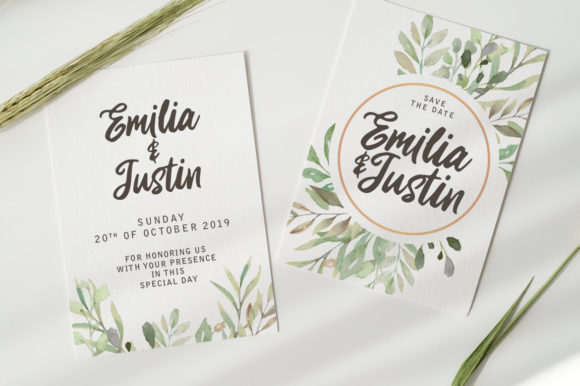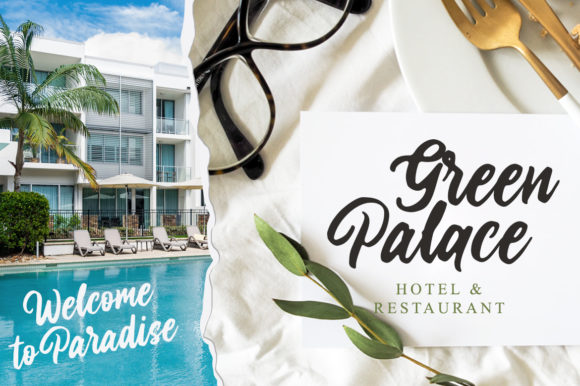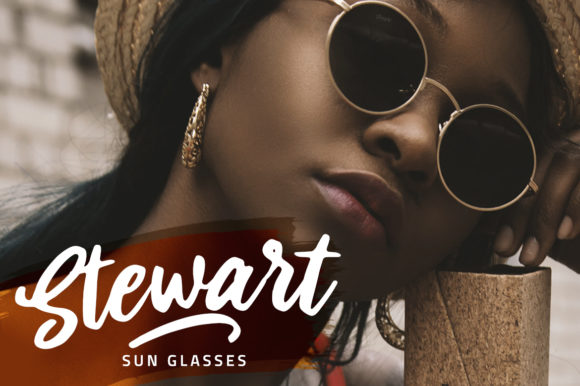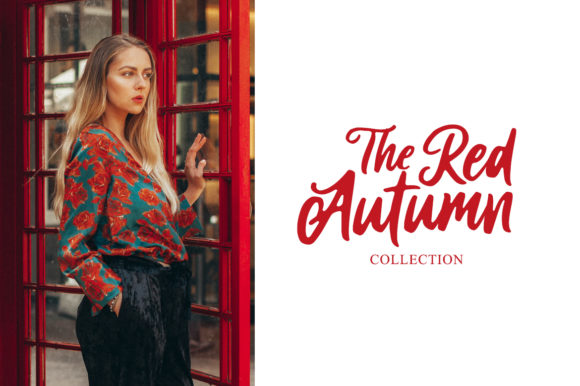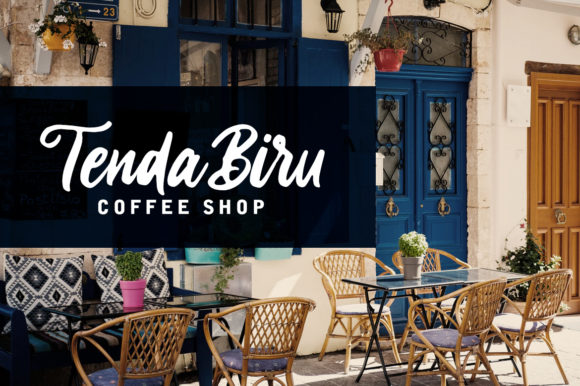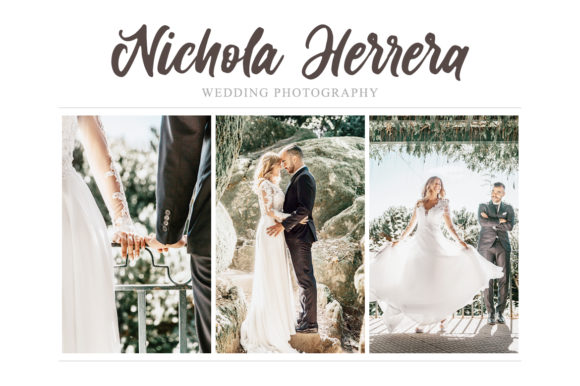
Introduction to Laritta Font Font
Fonts play a crucial role in design, and the Laritta Font font is a typeface that brings both character and versatility to any project. Whether you’re working on a branding project, a website, or a print design, the Laritta Font font offers a unique style that can elevate your work.
Laritta fuses elegance and authenticity into one truly beautiful and original crafting font.
It will easily turn any design project into a true masterpiece .
The Laritta Font font is more than just a typeface – it’s a design tool that helps you communicate your message with style and clarity. Its unique character set and versatile design make it suitable for a wide range of applications, from elegant invitations to bold headlines.
With its carefully crafted letterforms and balanced proportions, the Laritta Font font ensures readability and visual appeal across all mediums.
The Laritta Font font stands out with its unique design, exceptional readability, and versatility across various design applications.